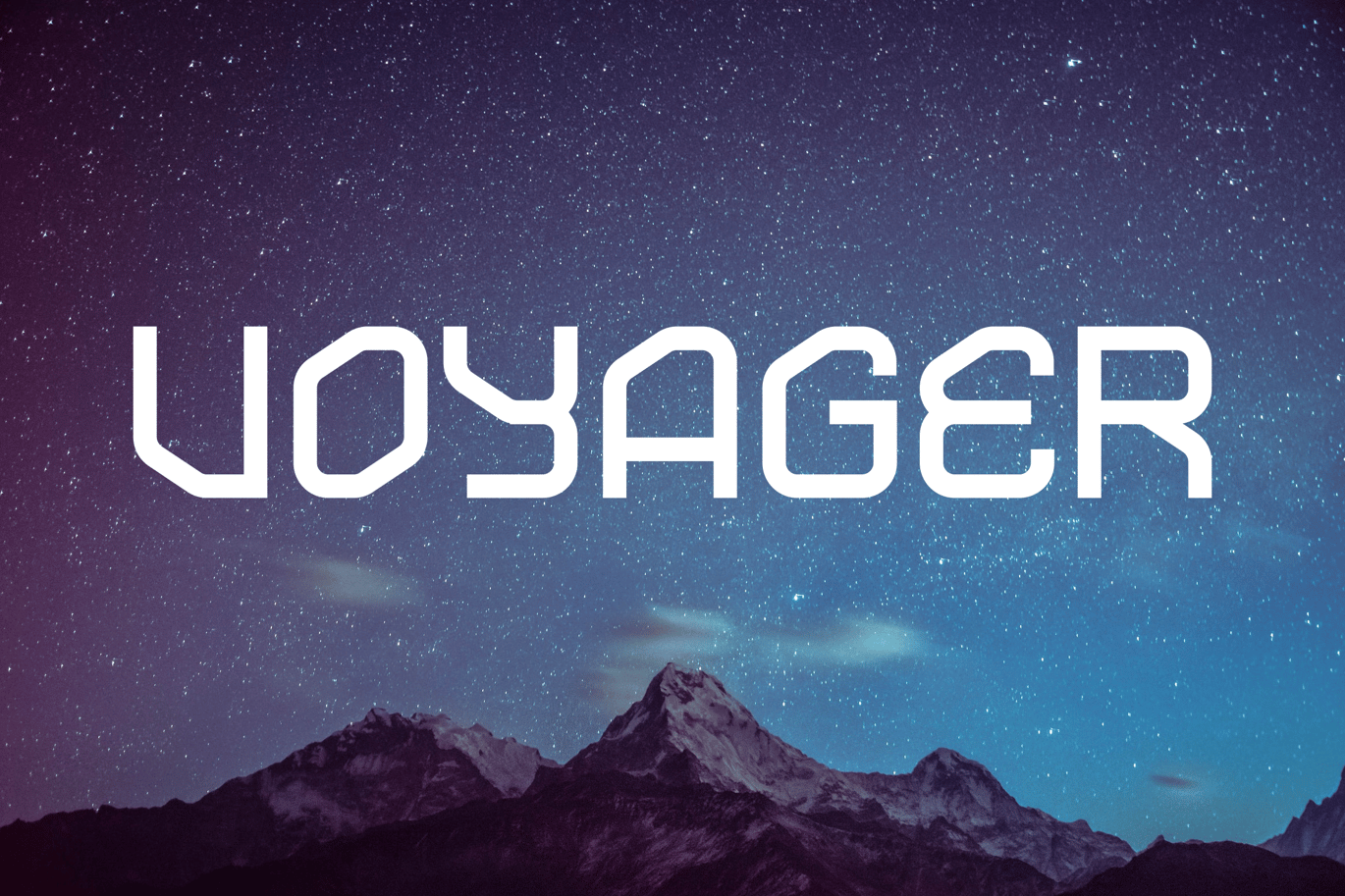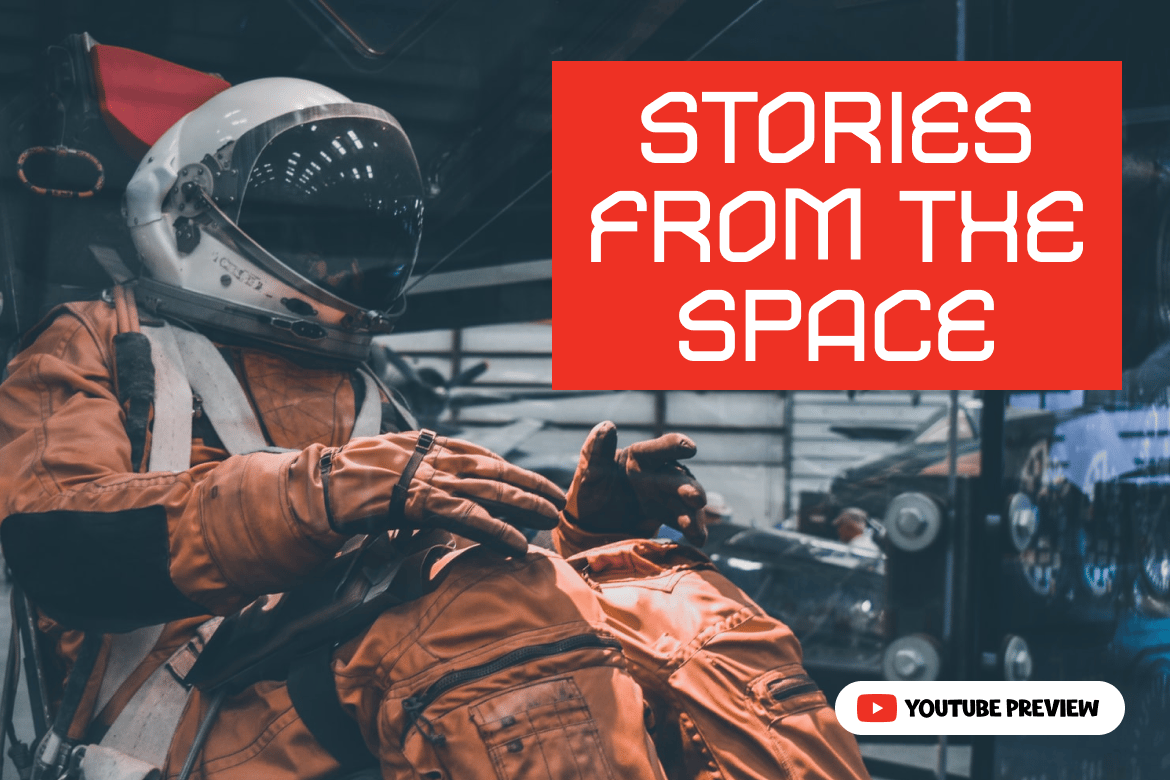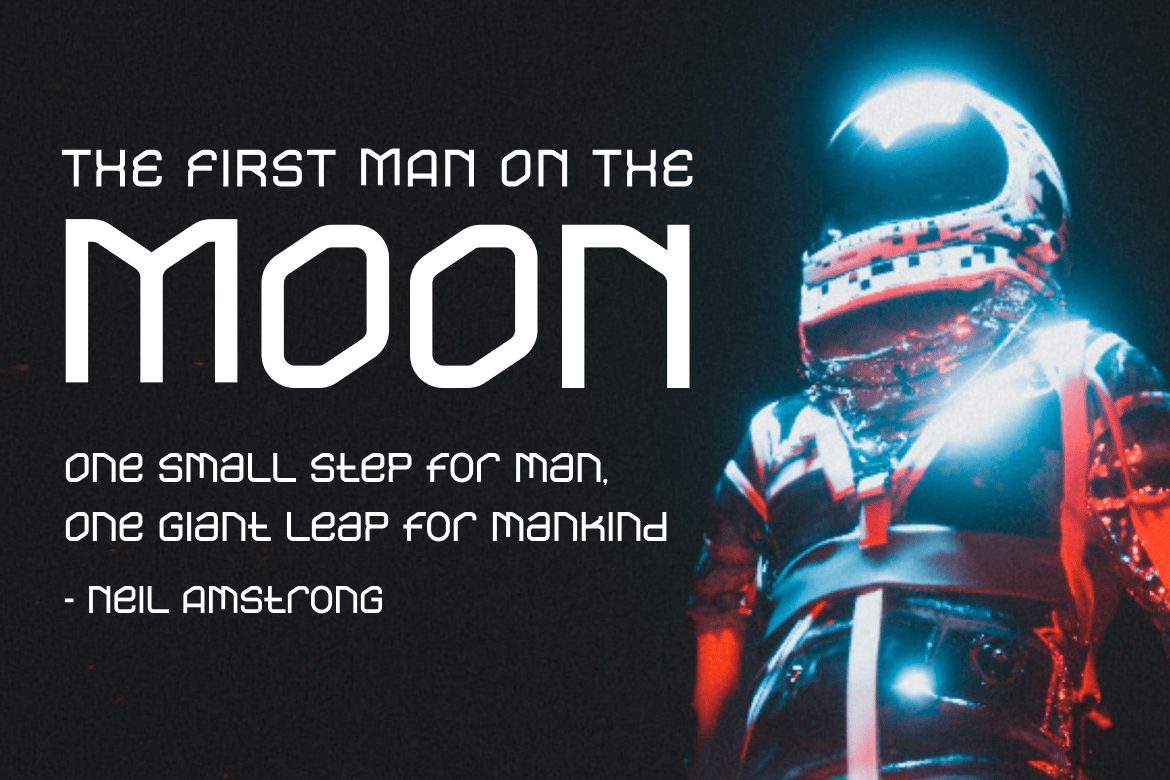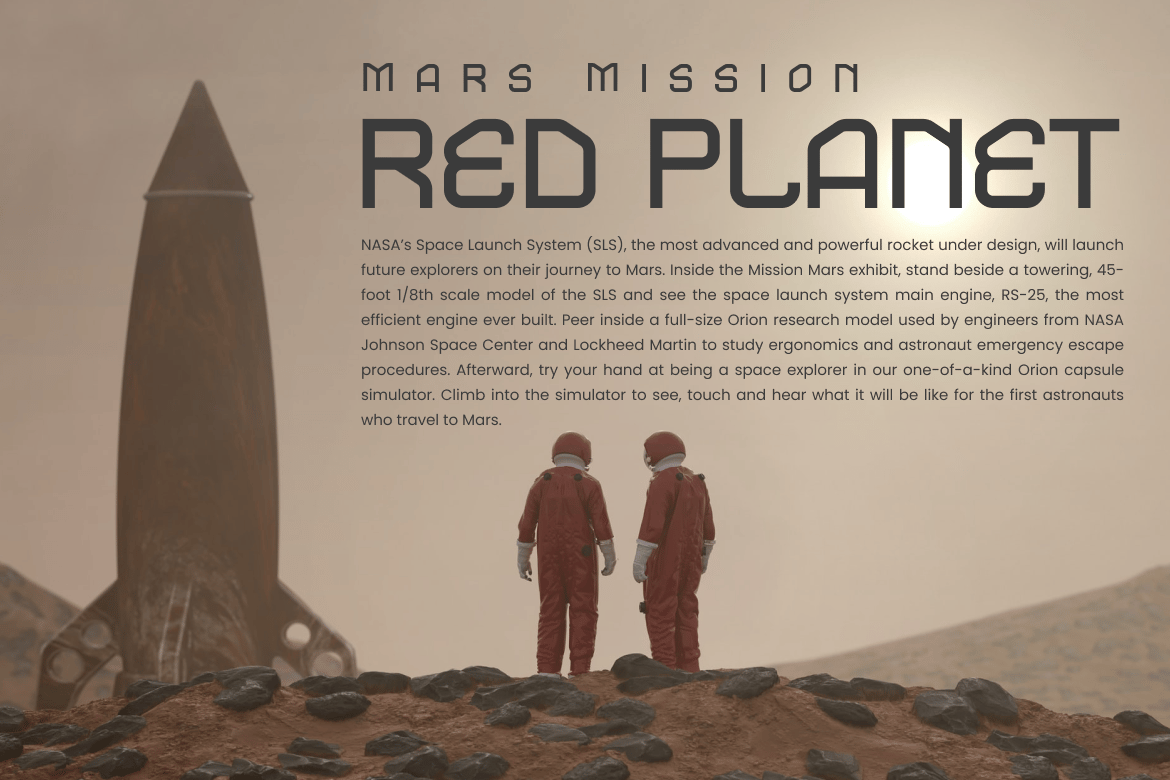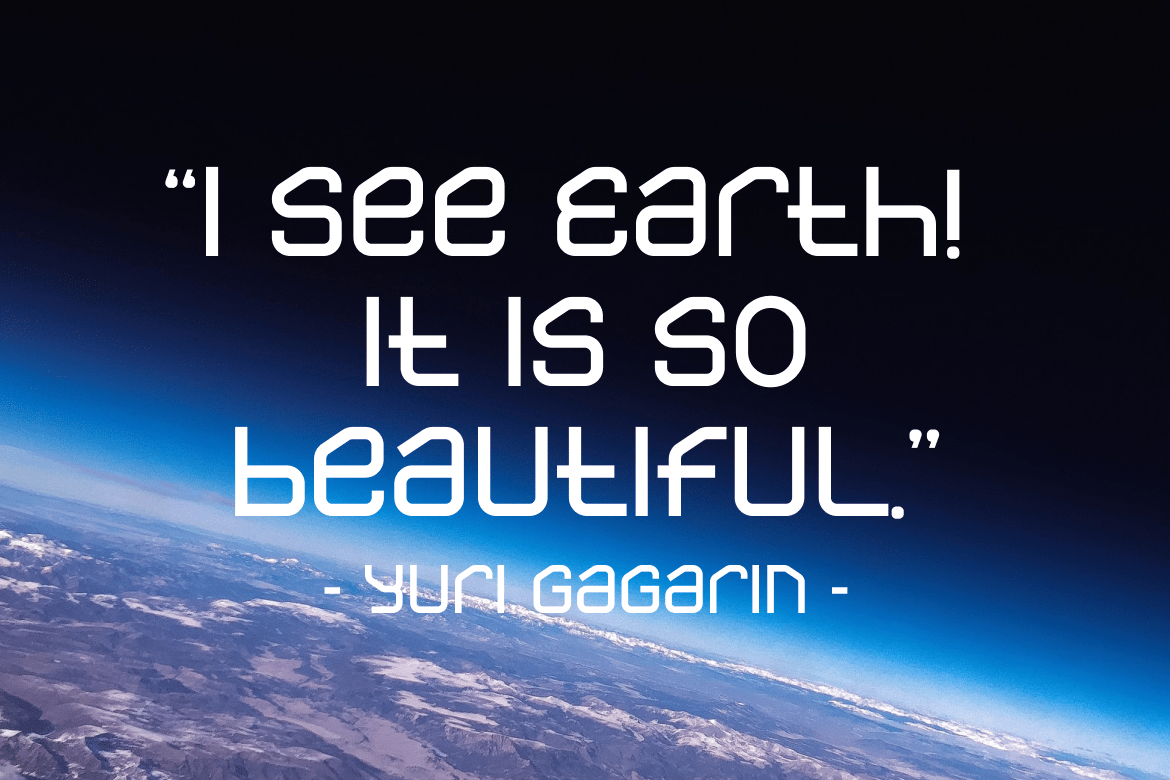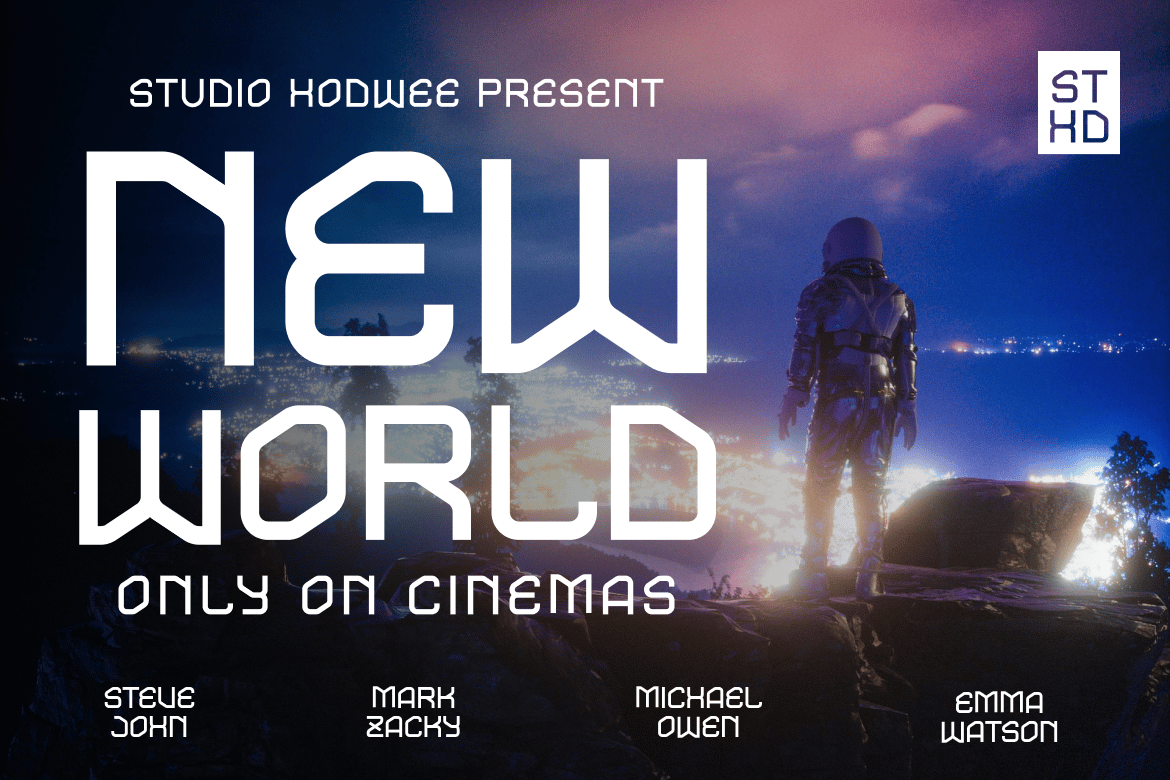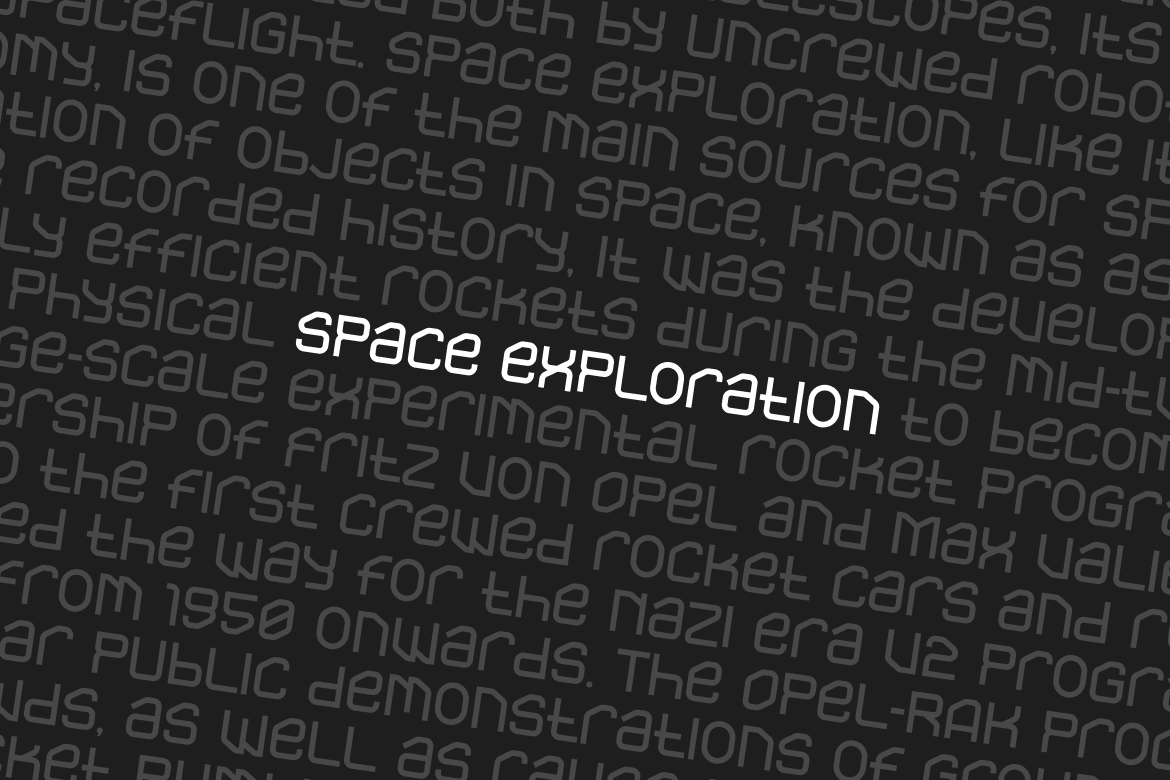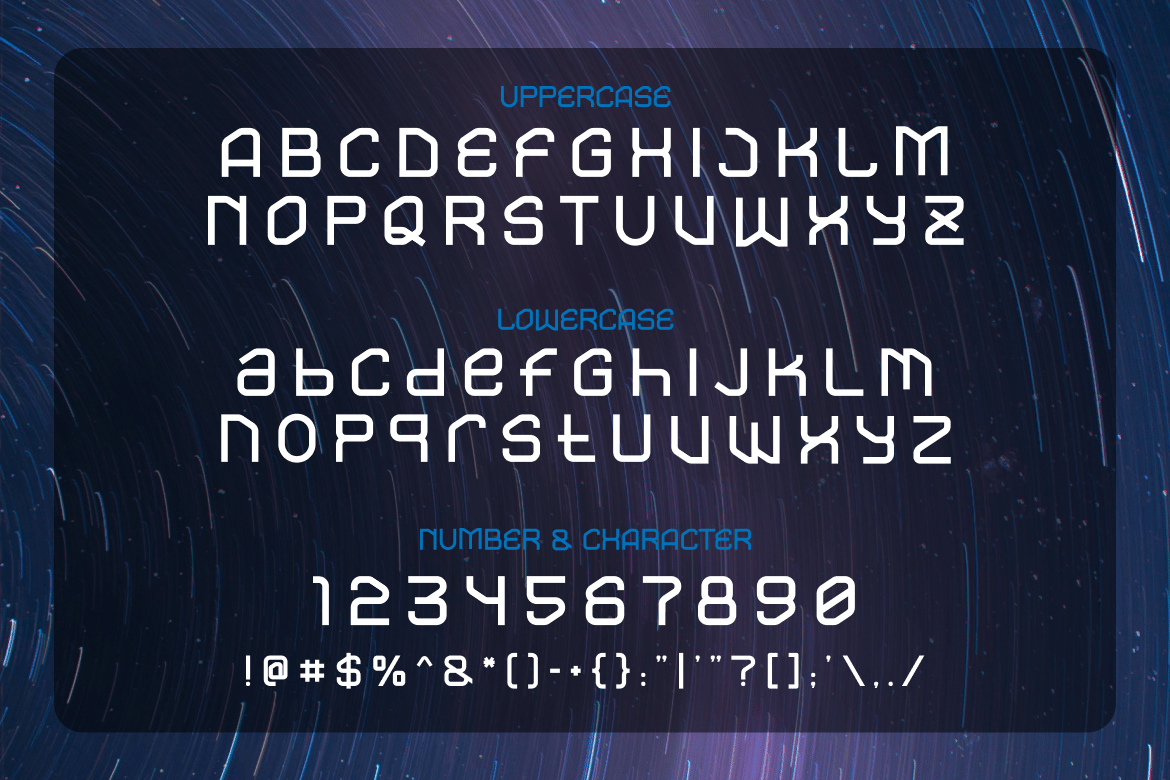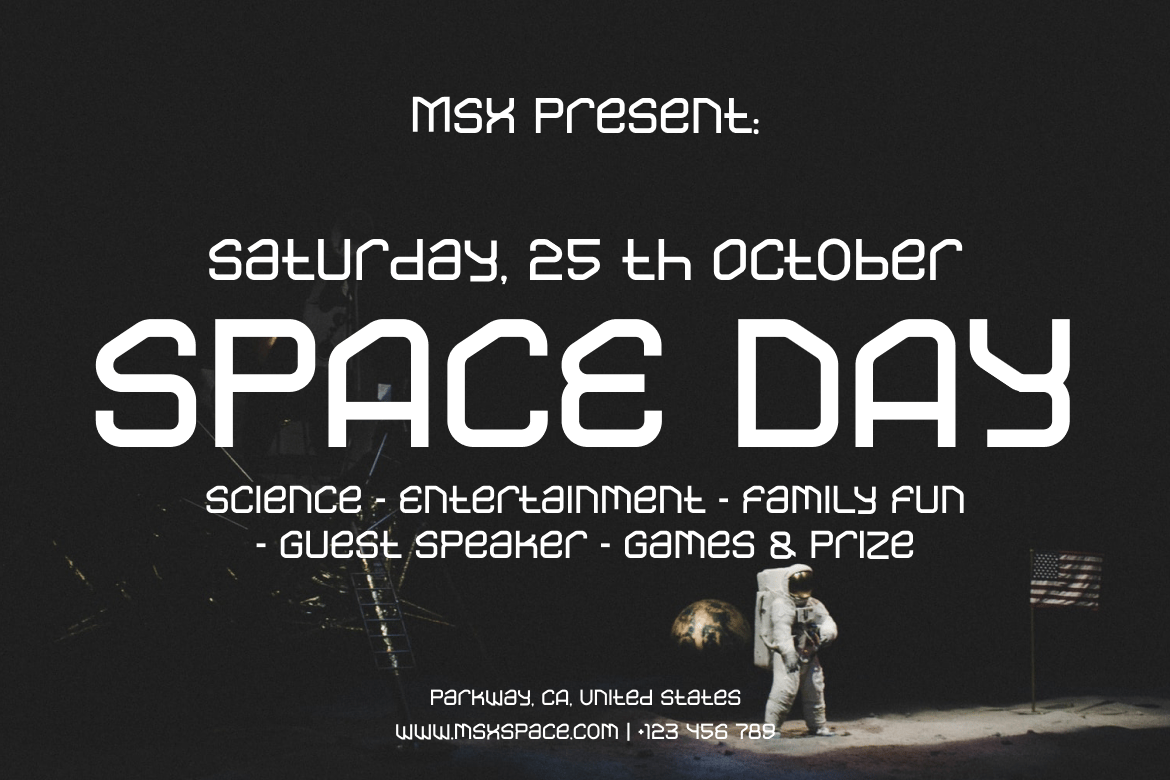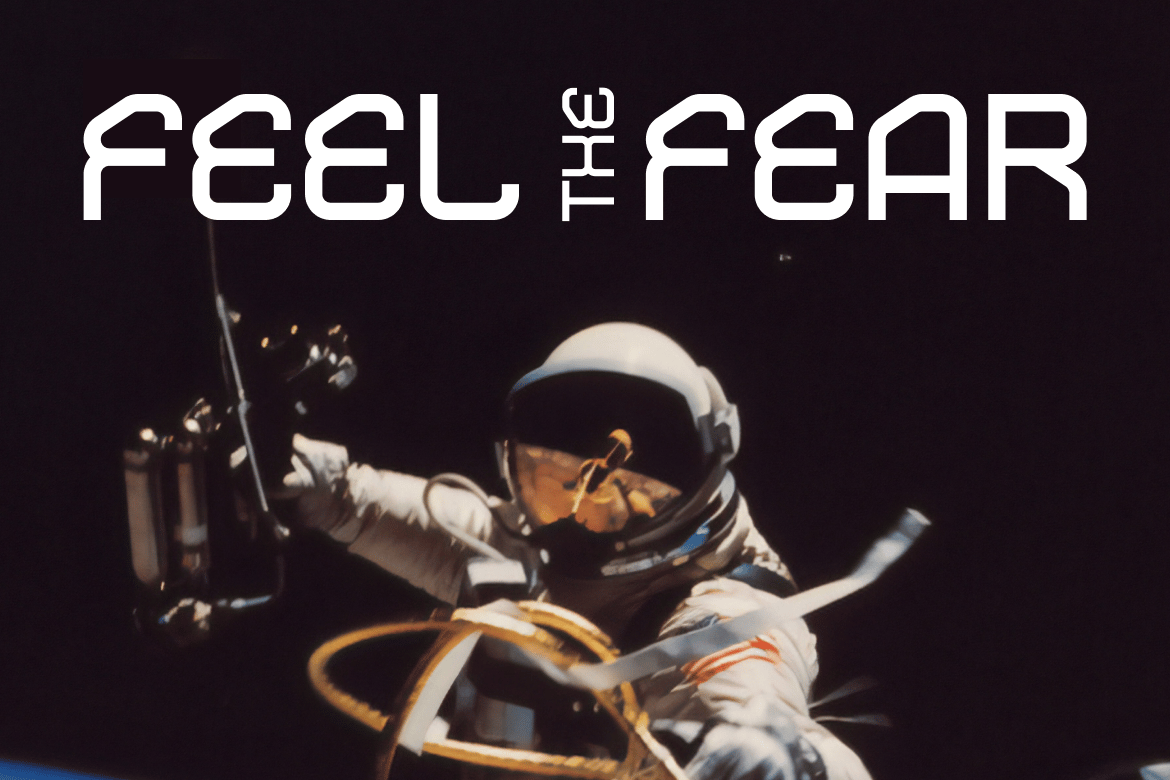
Voyager – Futuristic Space Font
Introducing Voyager, the ultimate font for futuristic and science-related projects. With a sleek and modern design, this techno-inspired font is perfect for magazines, posters, movie titles, music posters, YouTube covers, and social media page covers geared toward future and science enthusiasts.
The Voyager font has a sci-fi feel, making it ideal for gaming, space-related designs, and technology-related projects. Its edgy and futuristic look is perfect for conveying a sense of cutting-edge technology and innovation.
The unique style of Voyager is perfect for creating visually appealing headlines, titles, and captions that will grab your audience’s attention. The font’s sleek lines and sharp edges make it stand out from the crowd and give it a distinct and memorable look.
Whether you’re creating a sci-fi movie poster, a futuristic tech product launch, or a cutting-edge magazine cover, Voyager has got you covered. This versatile font can be used for many projects, making it a must-have for any designer or creative professional looking to add a touch of futuristic sophistication to their work.